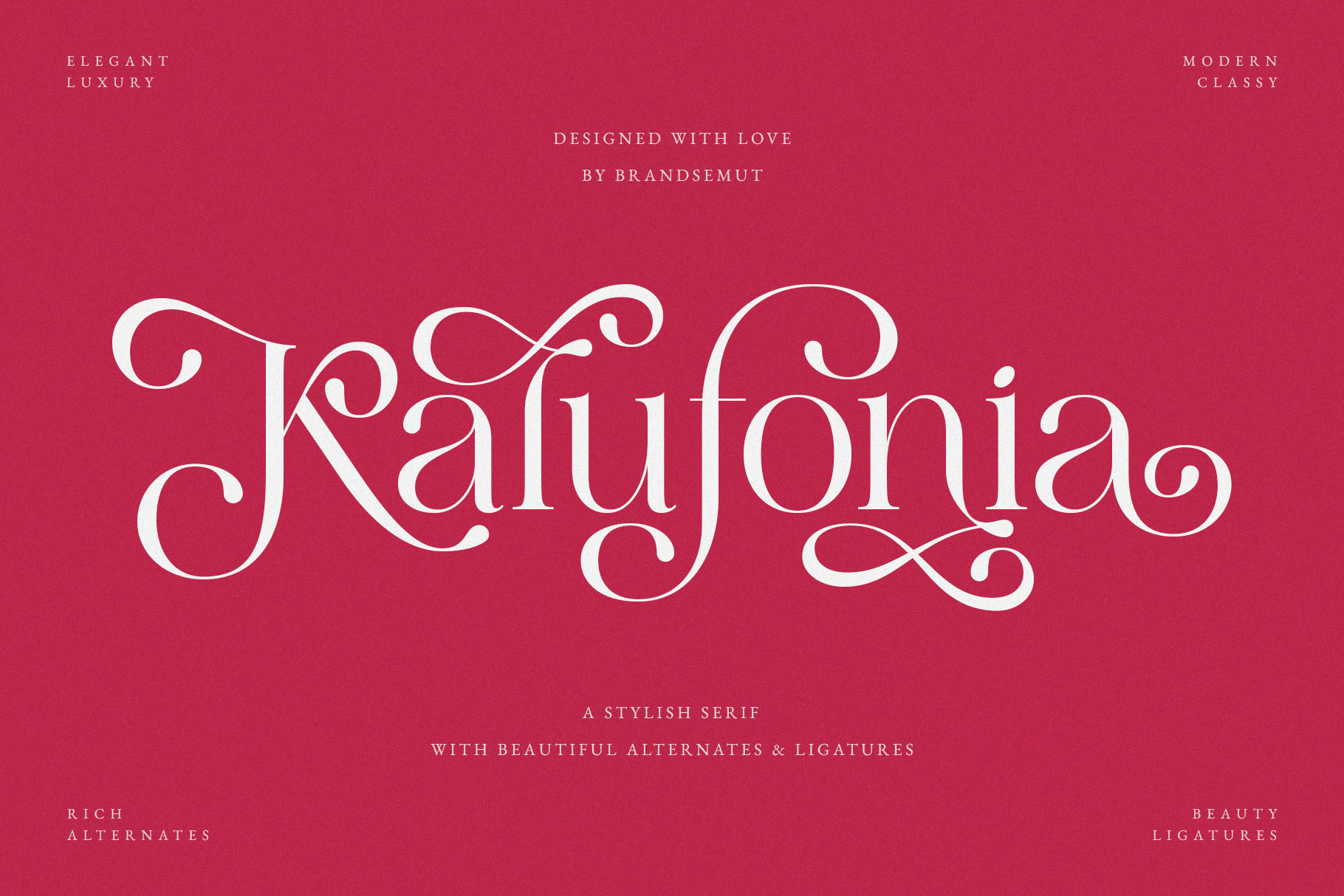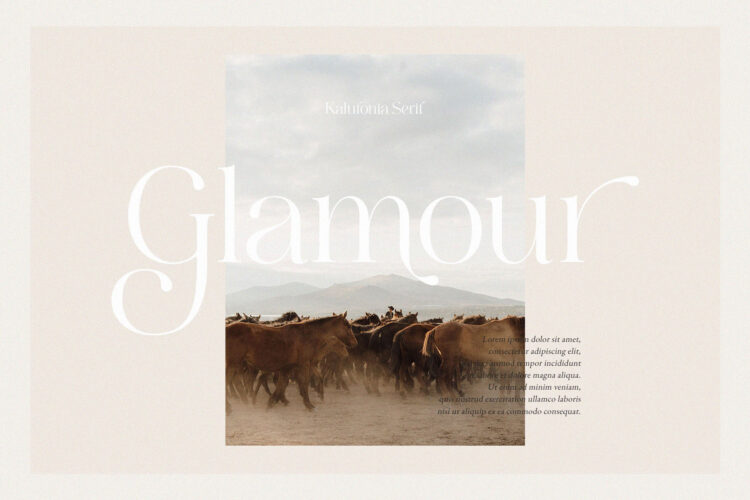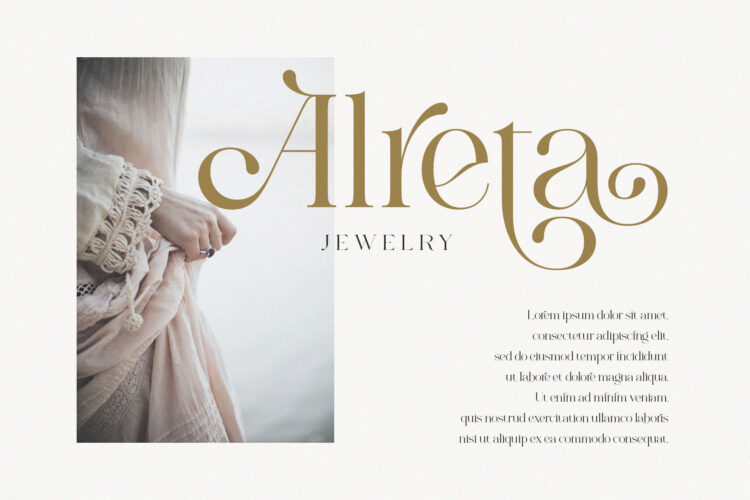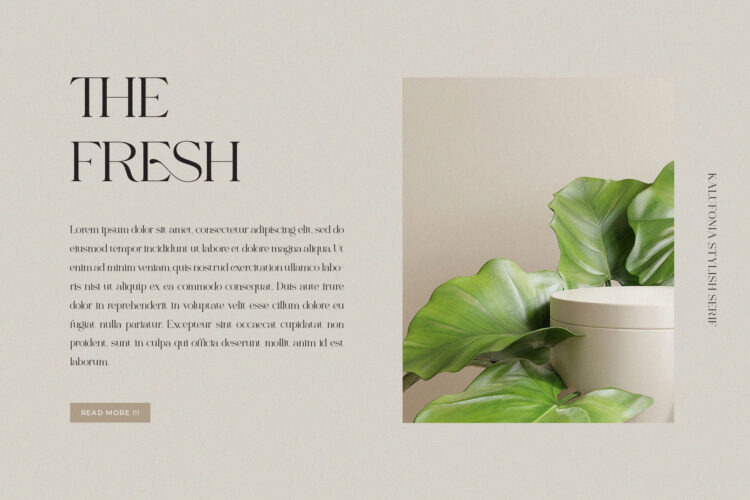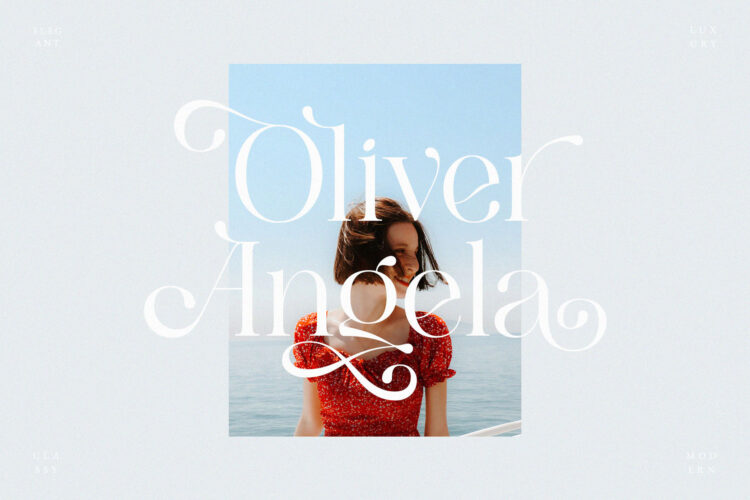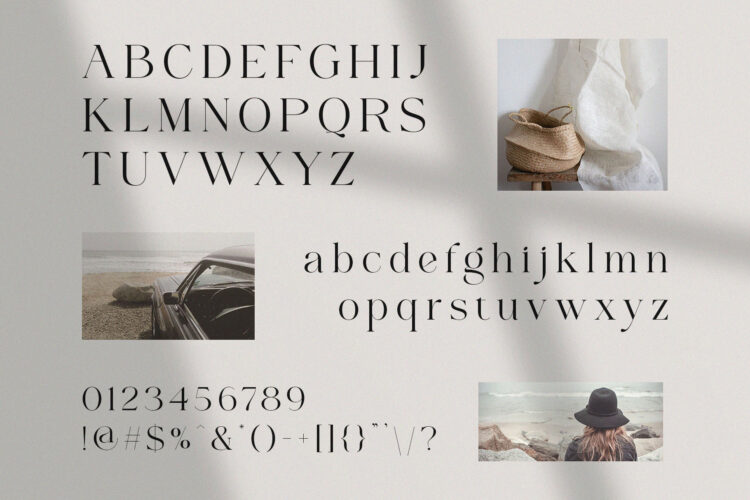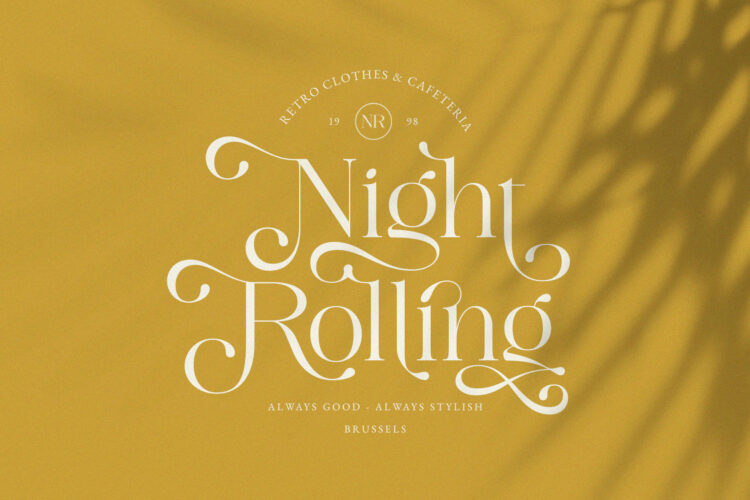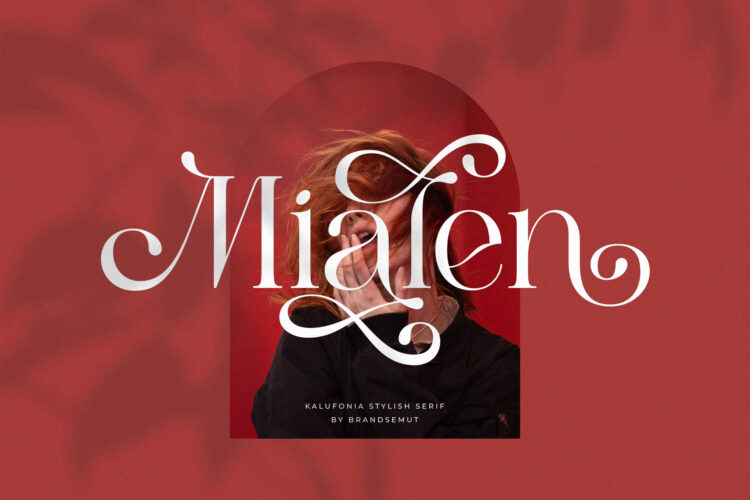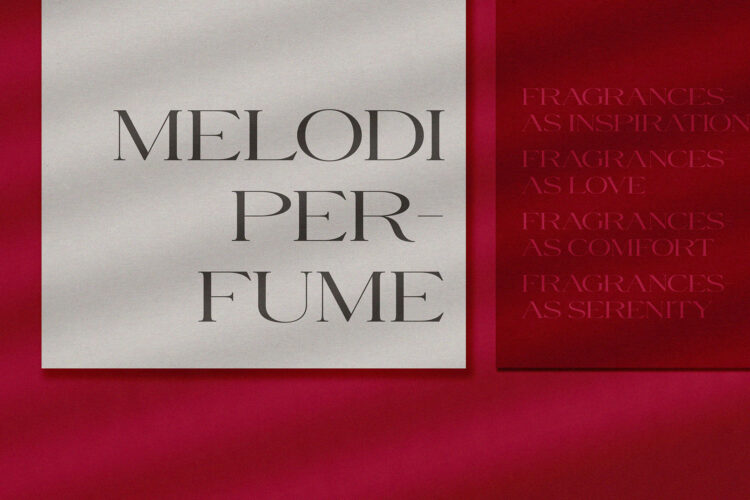
Introducing Kalufonia Stylish Display Serif.
Kalufonia is a stylish and modern display serif, best used as a display for headings, logos, branding, magazines, product packaging and invitations. Kalufonia equipped with Ligature and many Alternates and come with clean lines and smooth curves give any project an extra touch of class.